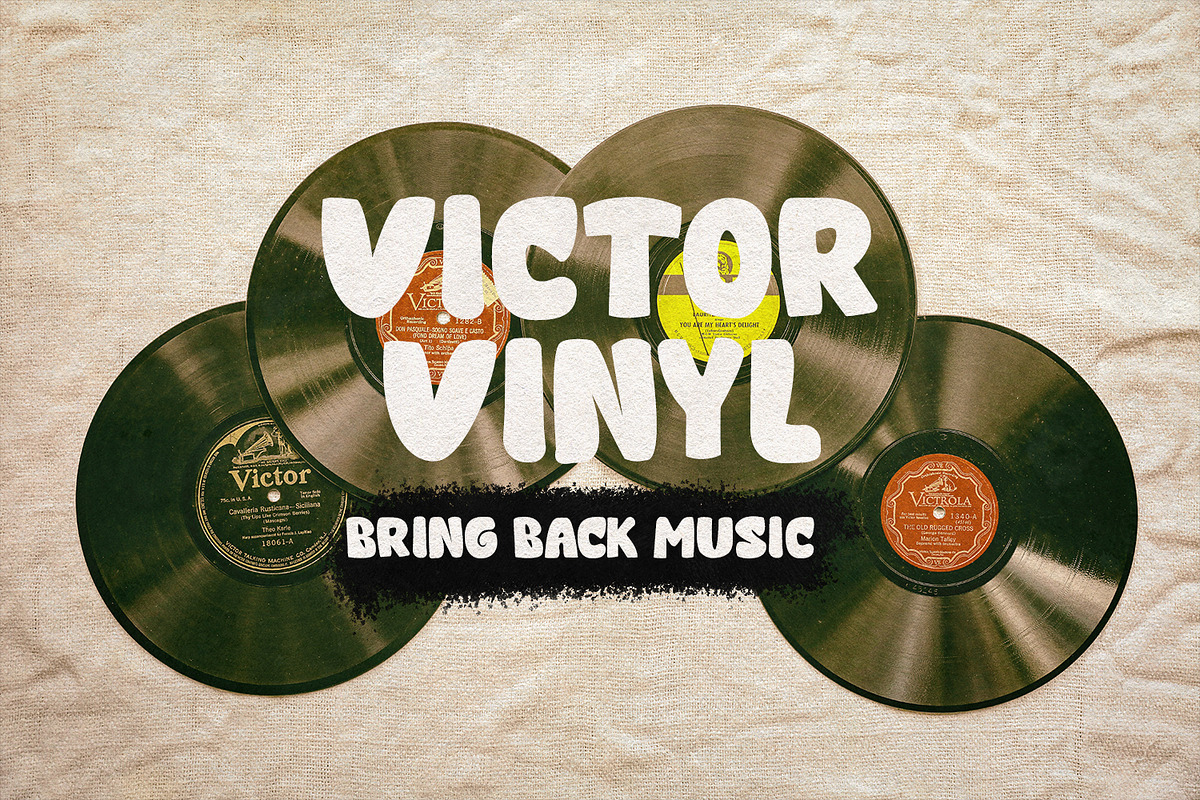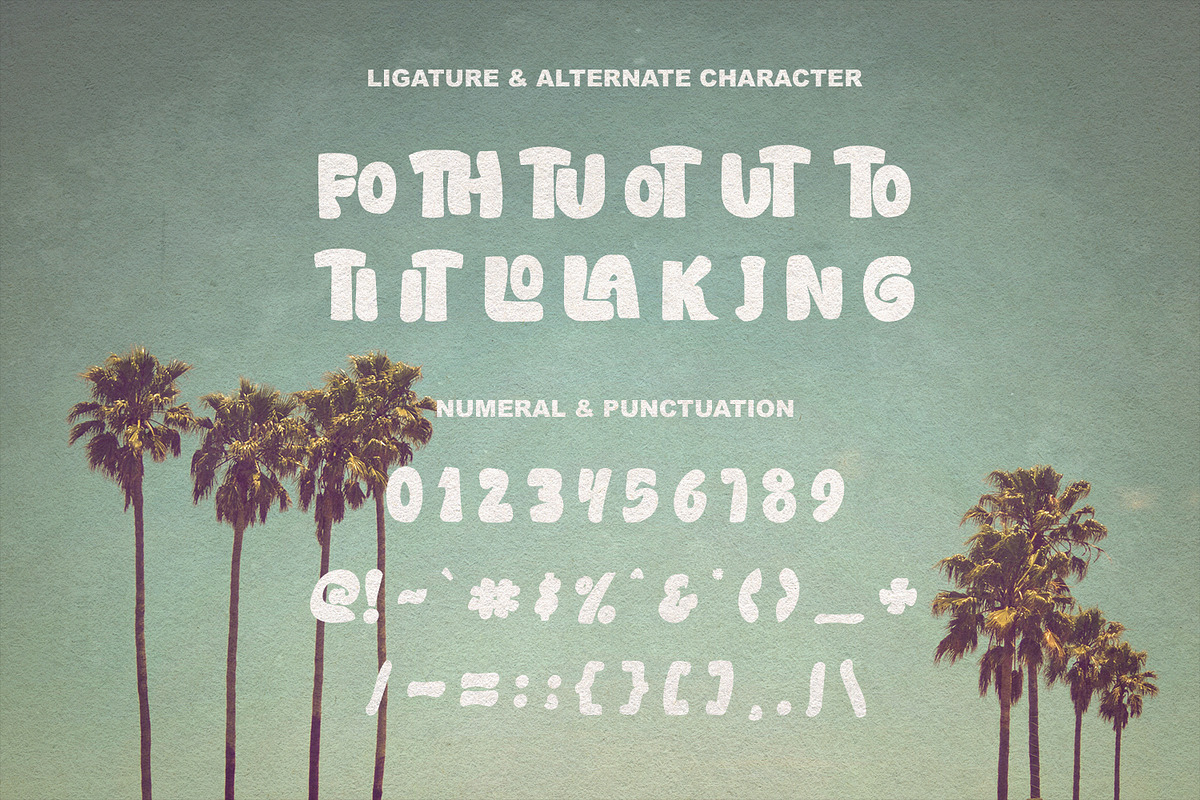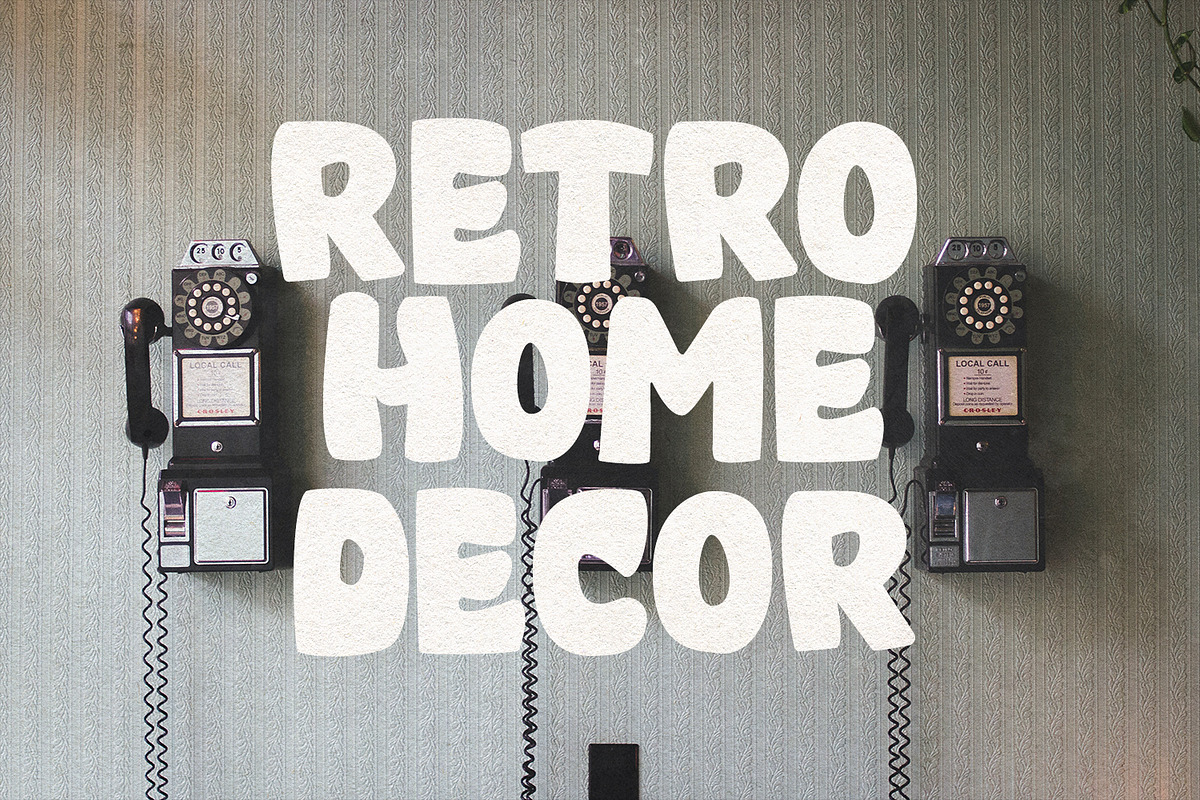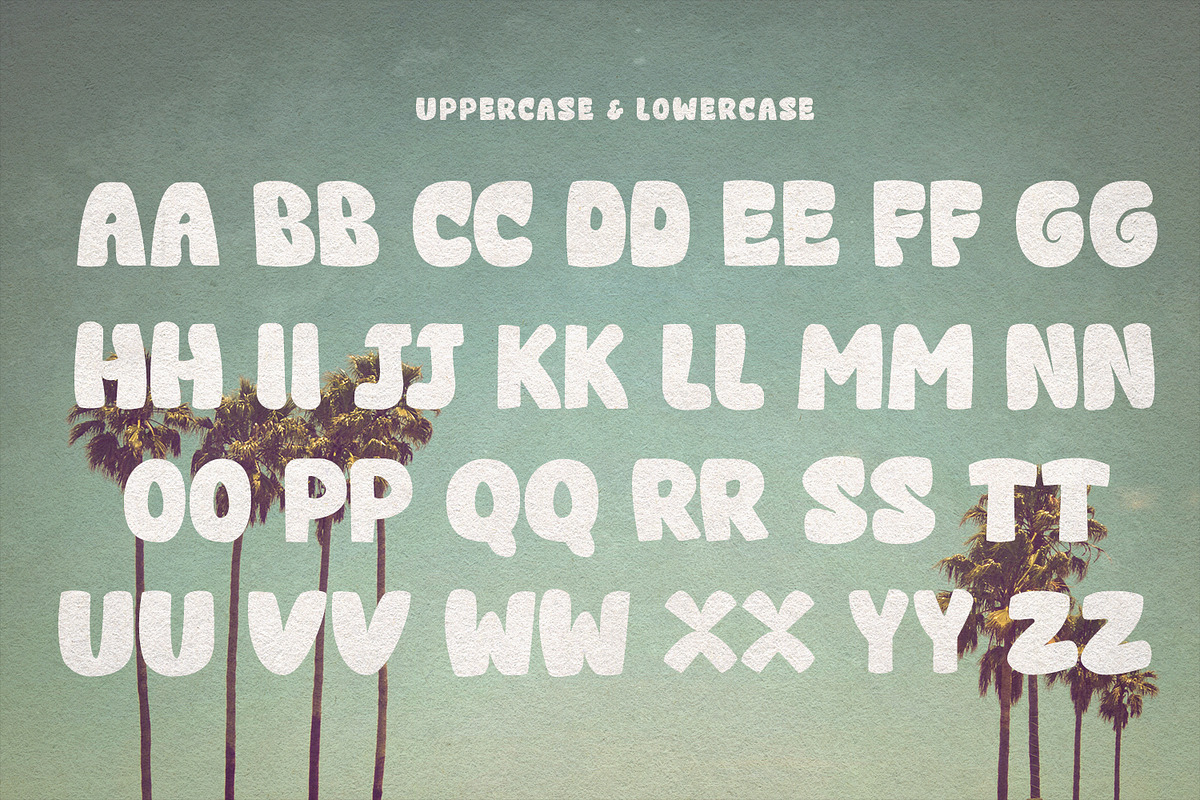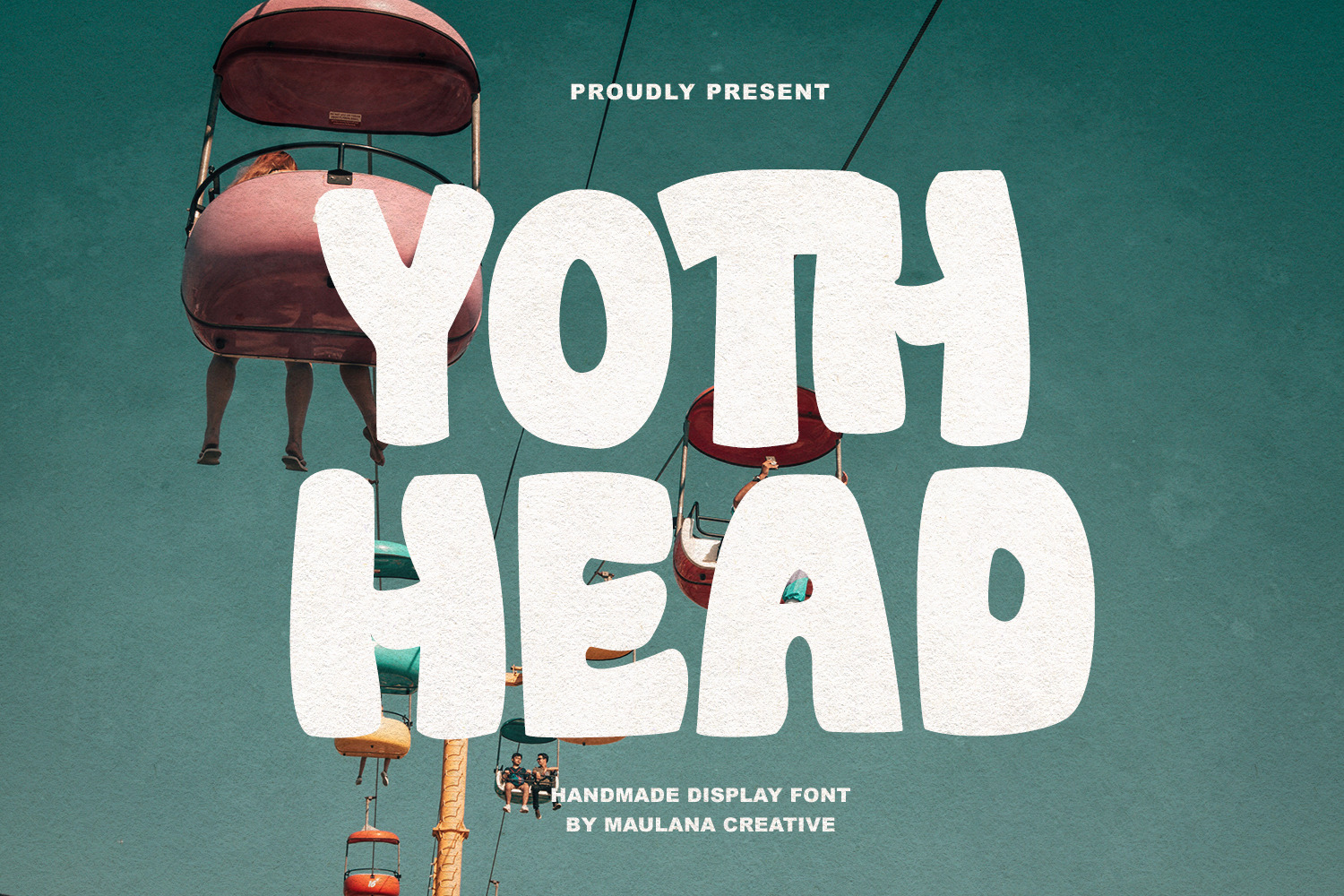
Yoth Head Handmade Display Font
Yoth Head handmade display font. Heavy stroke, fun character with a bit of ligatures. To give you an extra creative work. Yoth Head handmade display font support multilingual more than 100+ language. This font is good for logo design, Social media, Movie Titles, Books Titles, a short text even a long text letter and good for your secondary text font with script or serif. Make a stunning work with Yoth Head handmade display font.